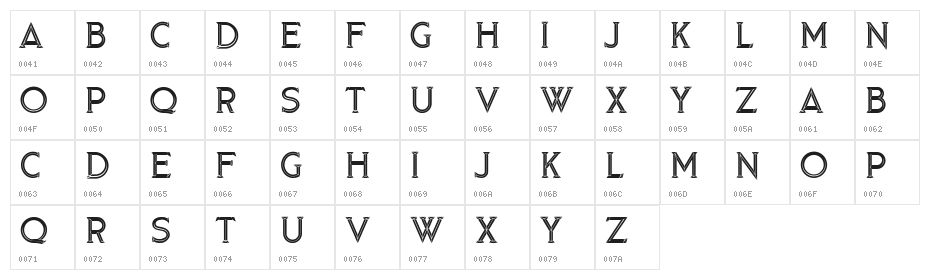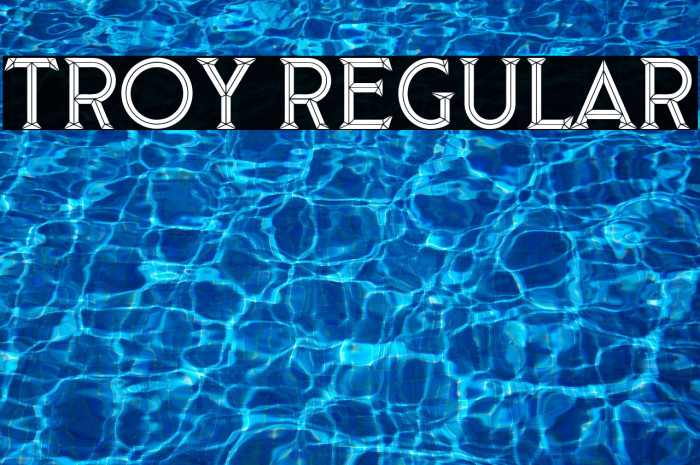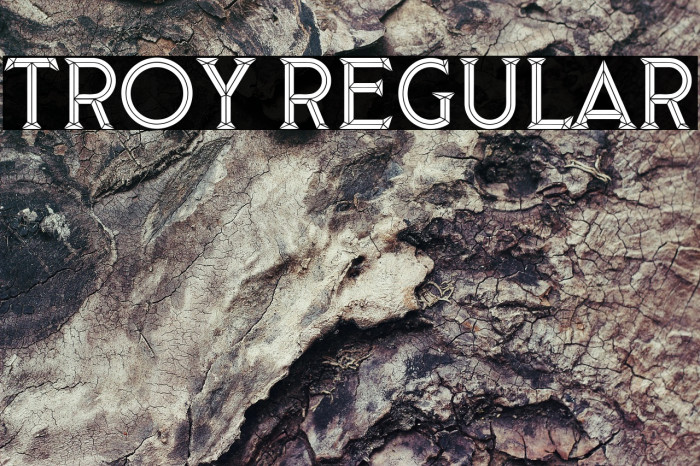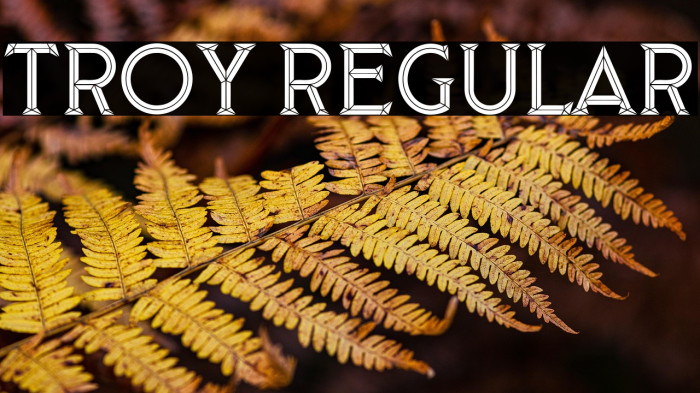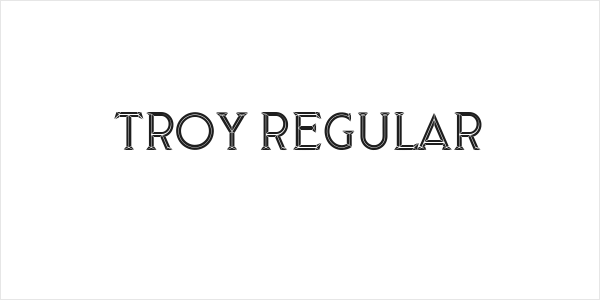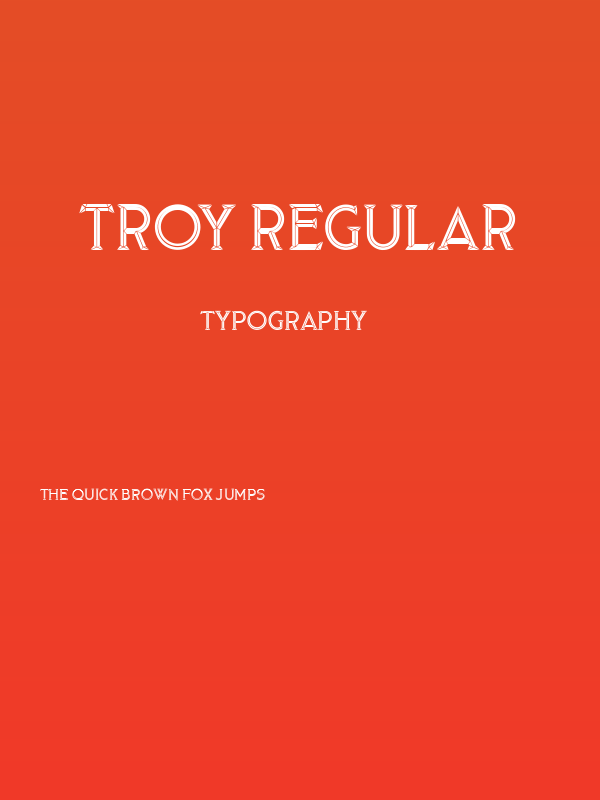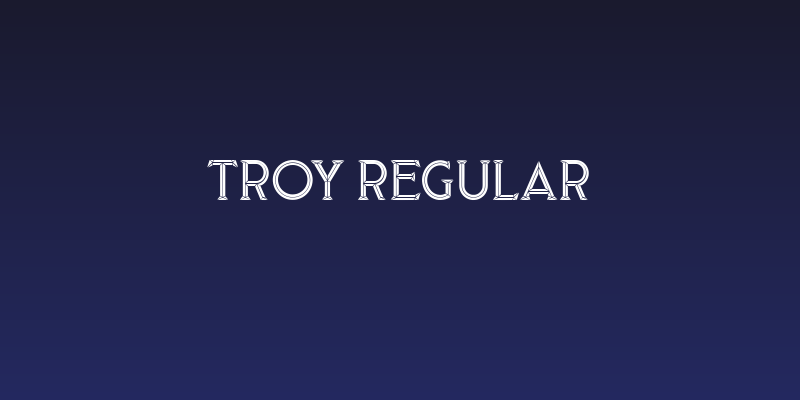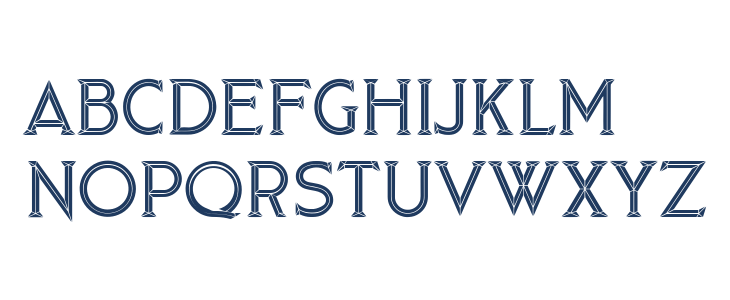
Troy Regular Font
Troy Regular Description
This font features a bold and striking design with a strong geometric influence. The characters are constructed with a combination of thick and thin lines, creating a high contrast that adds a sense of depth and dimension. The angular serifs and sharp edges give it a modern and dynamic appearance, making it stand out in any design. The uppercase letters are particularly prominent, with a commanding presence that draws attention. The overall style is both sophisticated and contemporary, suitable for a variety of creative applications.
| Proposed Projects | Ideal for branding, headlines, posters, and any project requiring a modern and impactful typeface. |